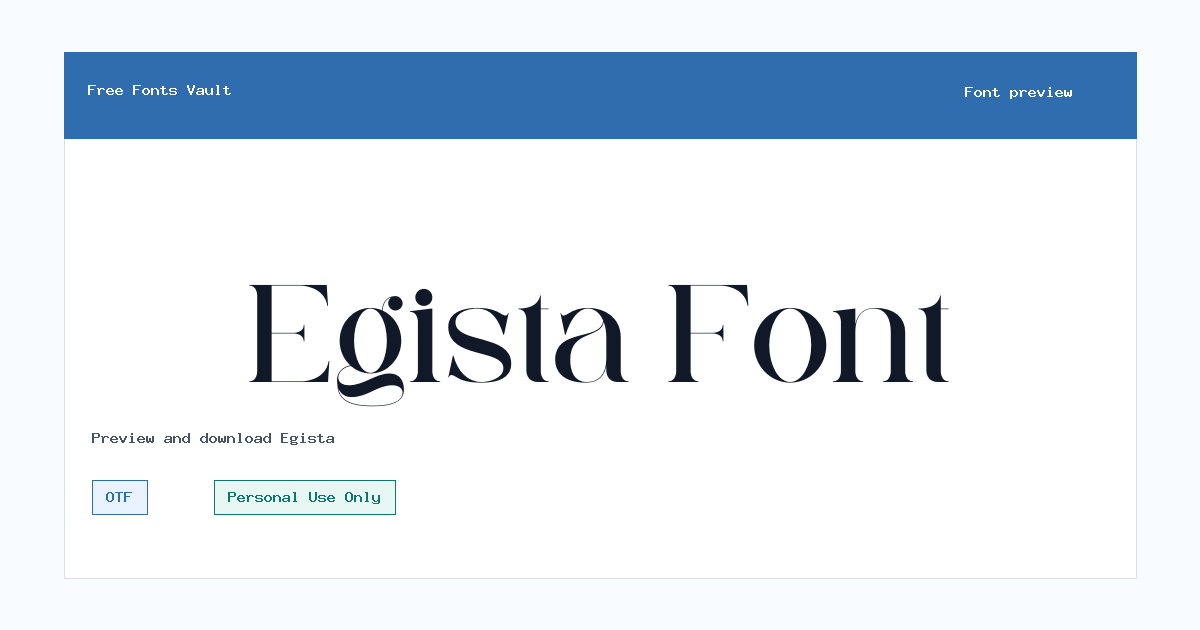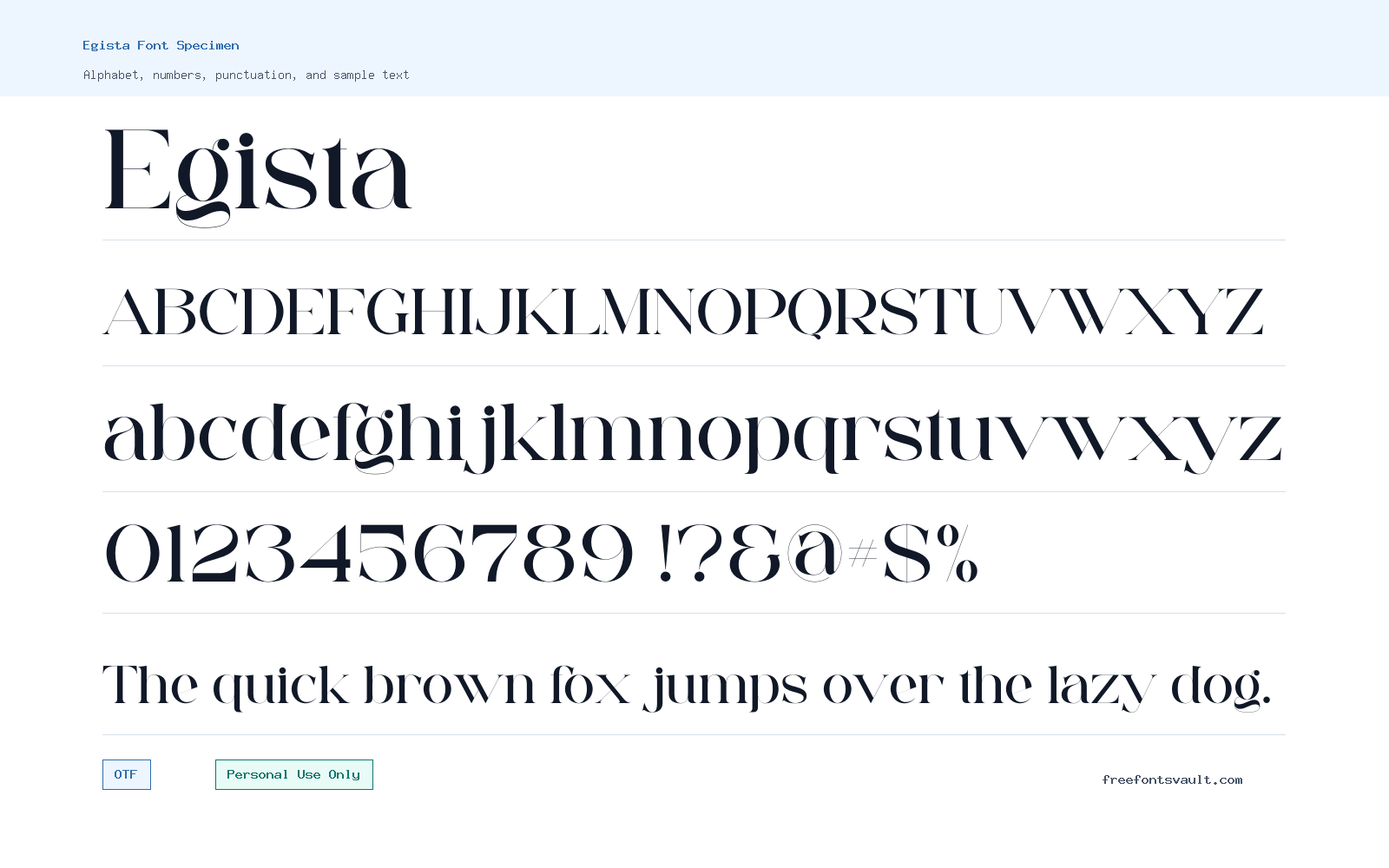
Egista
- Designer Biham Santoso
Egista is a modern ligature serif font with a polished display look, designed for short text that needs a refined, editorial feel. It works best when you want a title, logo draft, invitation heading, or poster line to feel elegant without becoming overly decorative.
About Egista
Egista is a serif typeface by Biham Santoso. The font is offered in a regular OTF style, so it is simple to install and test in common design apps. Its visual direction fits the modern serif category: shaped for headings, brand marks, social graphics, invitation layouts, and other places where the letters can be given room to breathe. The ligature-focused style makes it more expressive than a plain text serif, so it is most useful for names, titles, short taglines, and selected words rather than long paragraphs.
For logo work, Egista can be a good starting point when the project calls for an elegant serif wordmark. Try it with brand names in mixed case and all caps, then check how the spacing behaves between narrow letters, rounded letters, and any ligature combinations. For posters and web mockups, keep it large enough for the details to remain clear. It can pair well with a quiet sans serif for body text, product descriptions, menus, or captions. Avoid pairing it with another highly decorative font unless the layout is intentionally ornamental, because the display character of Egista already gives the design a strong voice.
- Modern serif display style suited to headings, logos, invitations, and poster text.
- Ligature-oriented look that can add character to short words and names.
- Best used at larger sizes where the serif details and spacing can be checked clearly.
- Works well as a visual accent when paired with a clean sans serif for supporting text.
- Poster titles, quote graphics, and editorial-style headings
- Wedding invitations, event cards, and greeting designs
- Website hero text, mockups, and social media graphics
- Short packaging-style labels or boutique branding explorations
Egista is credited to designer Biham Santoso. No separate foundry name is confirmed in the available font details.
Use Egista for short display text first, then test your exact wording before finalizing a layout. Check ligatures, letter spacing, punctuation, and readability at the size you plan to use. For a balanced design, pair it with a simple sans serif or a restrained text serif, and let Egista carry the main headline or name.
What kind of font is Egista?
Egista is a modern serif display font with a ligature-focused style. It is better for headings and logos than for long body text.
Who designed Egista?
Egista is credited to Biham Santoso.
Is Egista good for website text?
It is best for large web headings, hero text, or mockup titles. For paragraphs, use a more neutral text font and keep Egista as the display accent.